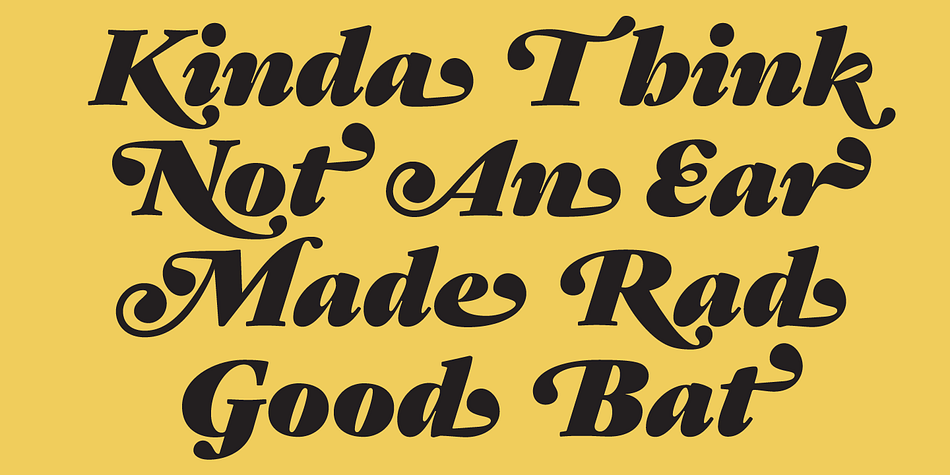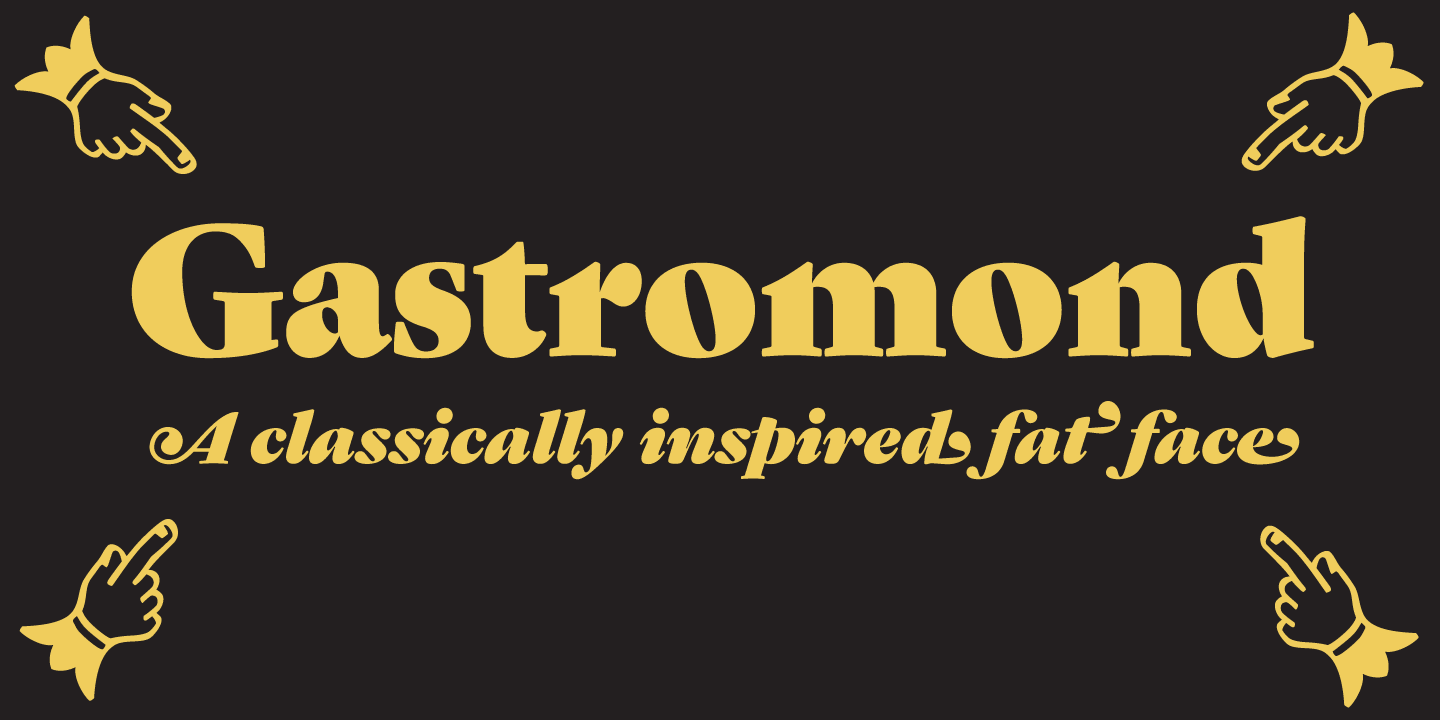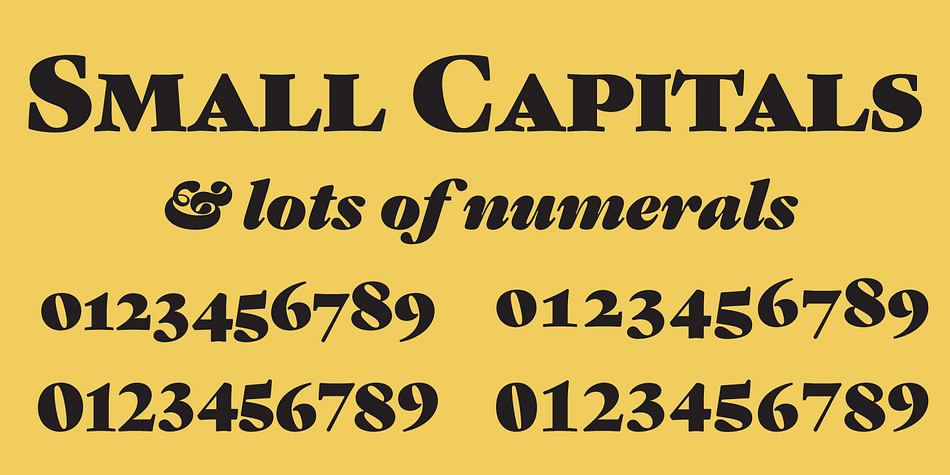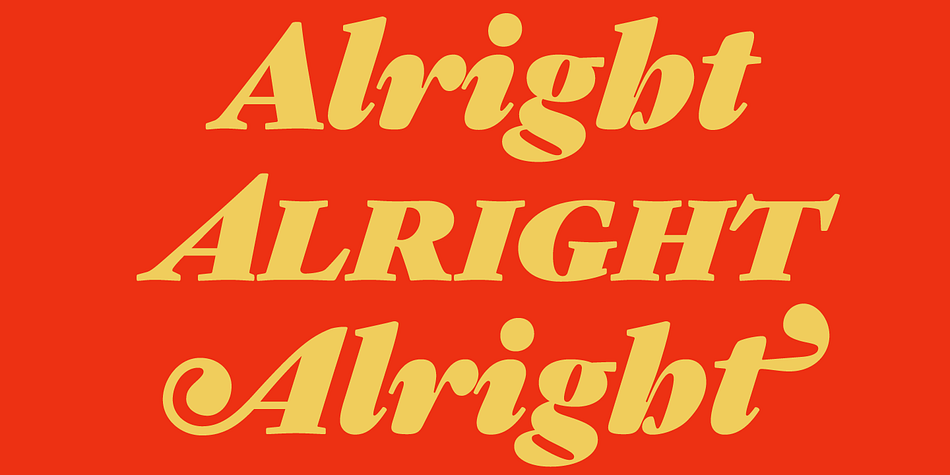
Designed by James Todd, Gastromond is a serif font family. This typeface has two styles and was published by JTD.
Gastromond began about five years ago with a question: why are “fat faces” always based on Didot or Bodoni models? Was there a reason that the stresses of these display faces was always vertical or horizontal and never angled? It was time to find out.
Gastromond is meant to blend the Renaissance stylings of the Garamond types with the Victorian outlandishness of the fat faces. The result is an emphatic take on a classic genre. Loaded with swashes and alternates, Gastromond has enough character to go around.